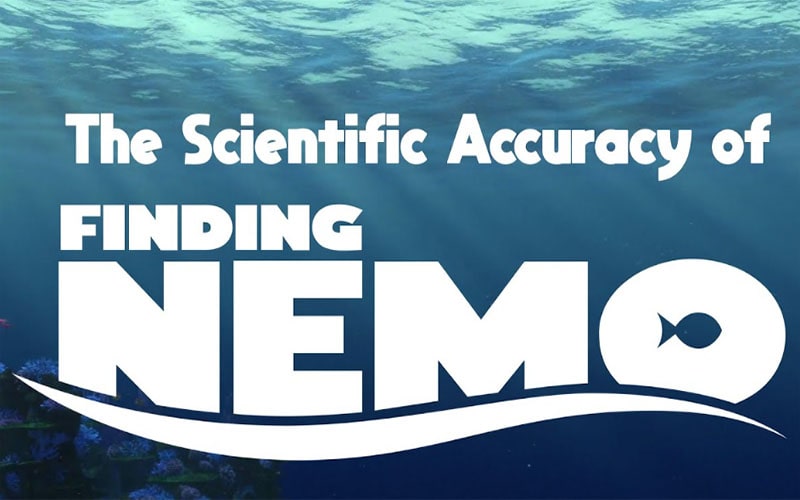
The Finding Nemo Font captures the playful and adventurous spirit of Pixar’s beloved animated film “Finding Nemo.” This typeface is ideal for projects that aim to evoke the charm and whimsy of the movie.
This font is a custom typeface designed specifically for the film. While the exact font is proprietary, a similar font called “Findet Nemo” is available, which closely resembles the playful and bubbly style of the original logo.
It includes a comprehensive character set featuring Uppercase letters, Lowercase letters, Numerals, and Punctuation marks. The “Findet Nemo” font, created by fans, mimics the distinct lettering used in the Finding Nemo logo.
Finding Nemo Font
| Font Name: | Finding Nemo Font |
| Style: | Playful, Various, Typeface |
| Font Designer: | Jens R. Ziehn |